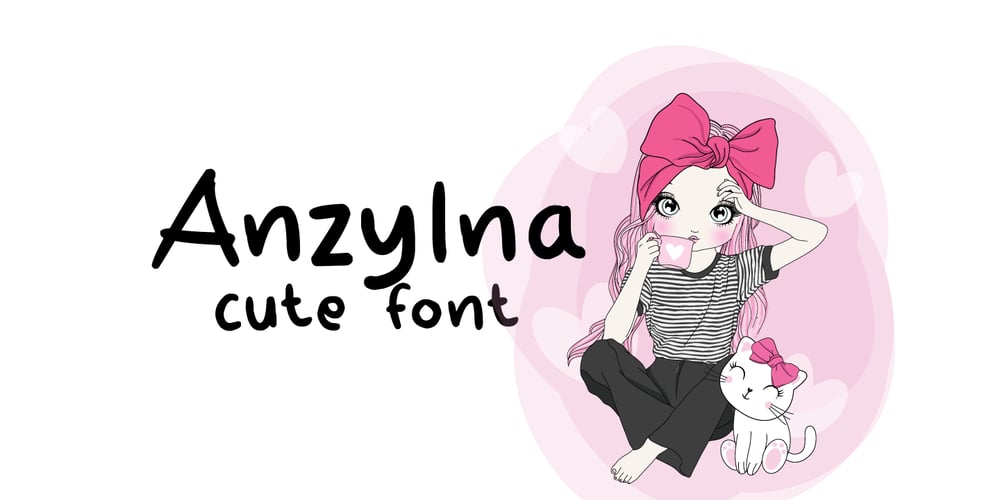
Anzylna
Anzylna font
Anzylna Font Family was designed by Siti Saribanon Nurjannah and published by Cititype. Anzylna contains 1 styles and family package options. Anzylna is a cheerful and friendly handwritten font. It is perfect for illustrations, posters, logos, book covers and much more!Include this font in your next project and give it a happy personality.